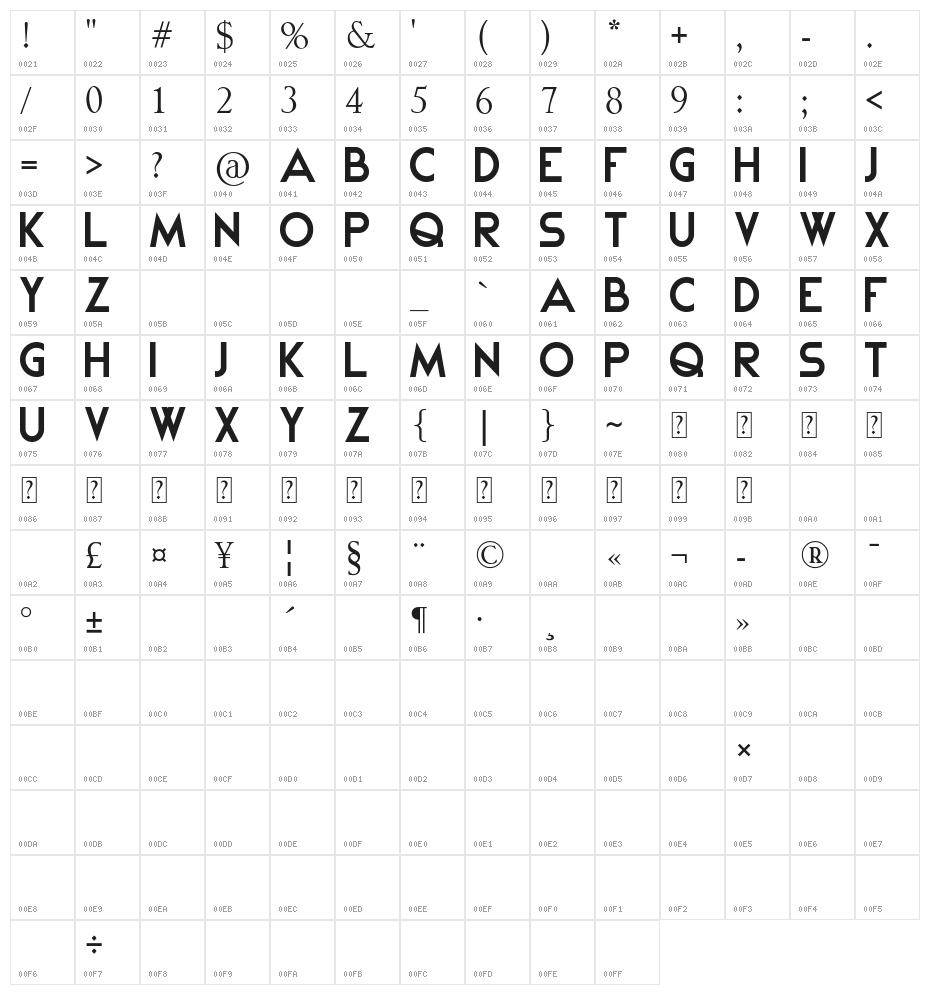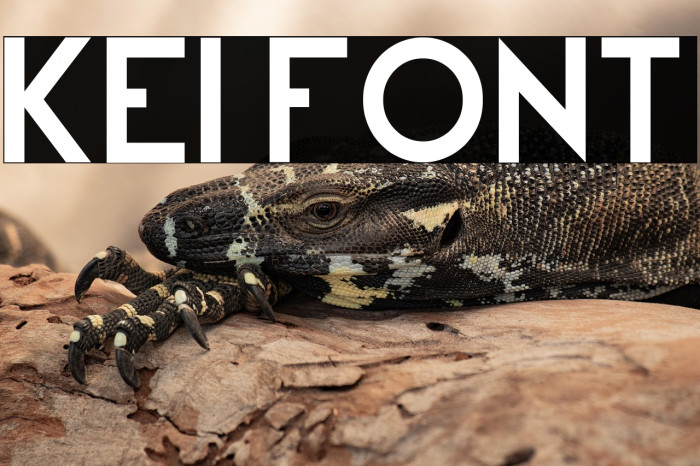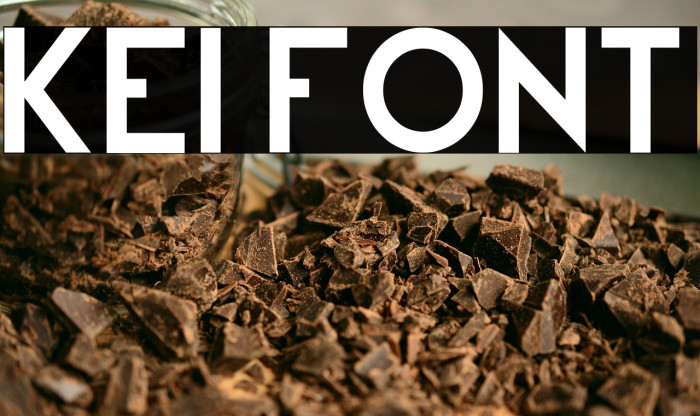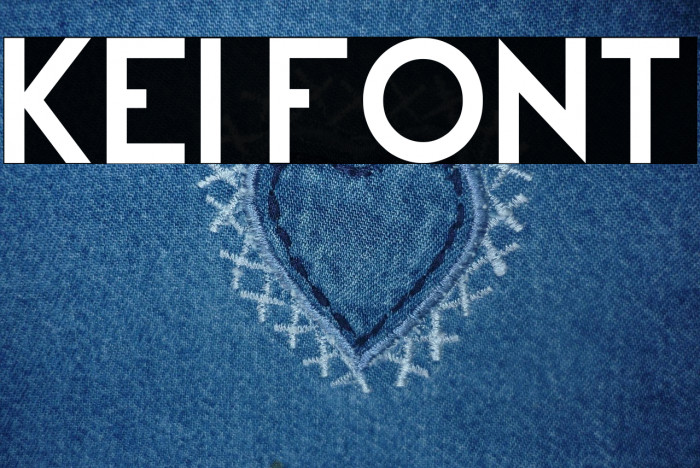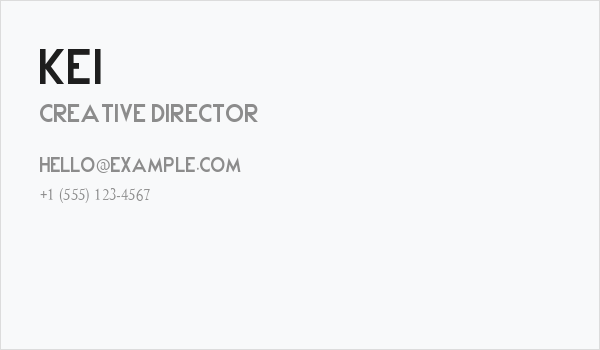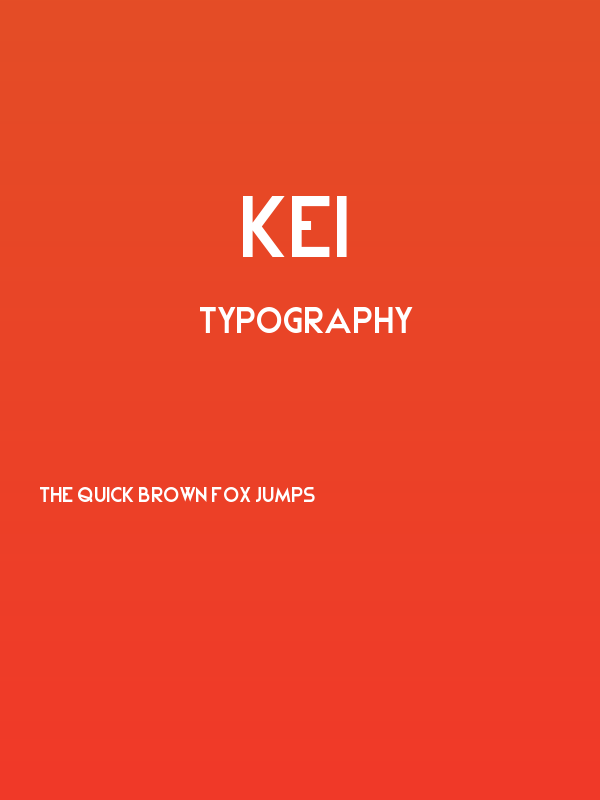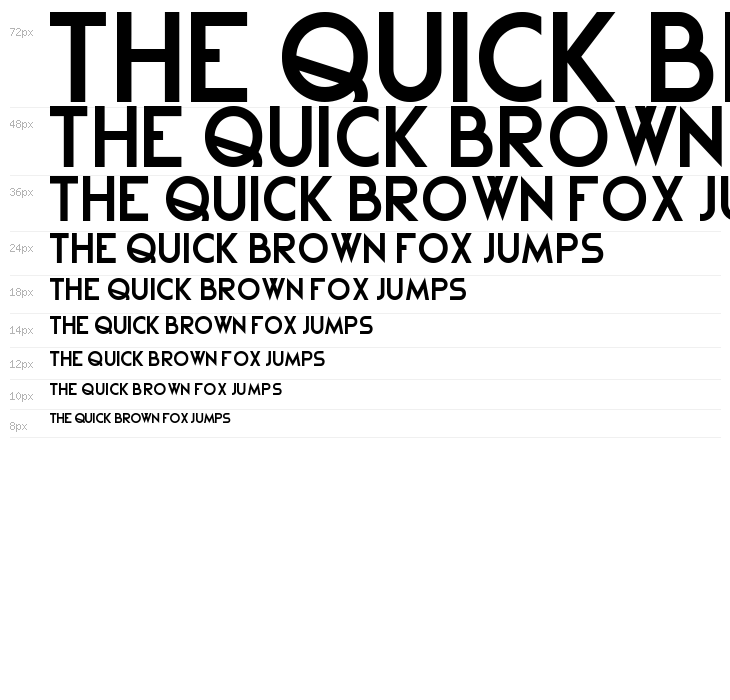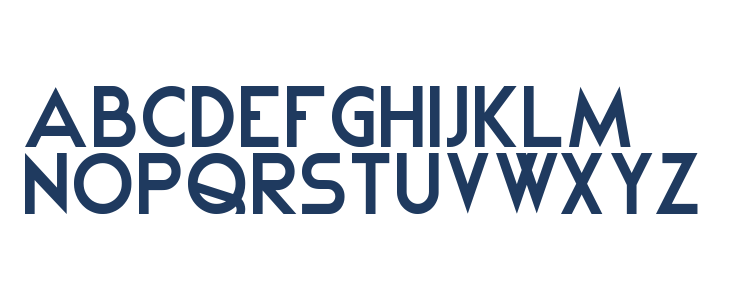
Kei Font
Kei Description
This font features a bold and geometric design with clean, sharp lines and a modern aesthetic. The uppercase letters are uniform in height, creating a sense of balance and stability. The lowercase letters maintain the same geometric style, with consistent stroke widths that enhance readability. The numerals are distinct and clear, making them suitable for various applications. Special characters are well-defined, adding versatility to the font's use. The overall impression is one of strength and clarity, making it ideal for impactful headlines and branding.
| Proposed Projects | Ideal for branding, headlines, posters, and modern web design. |